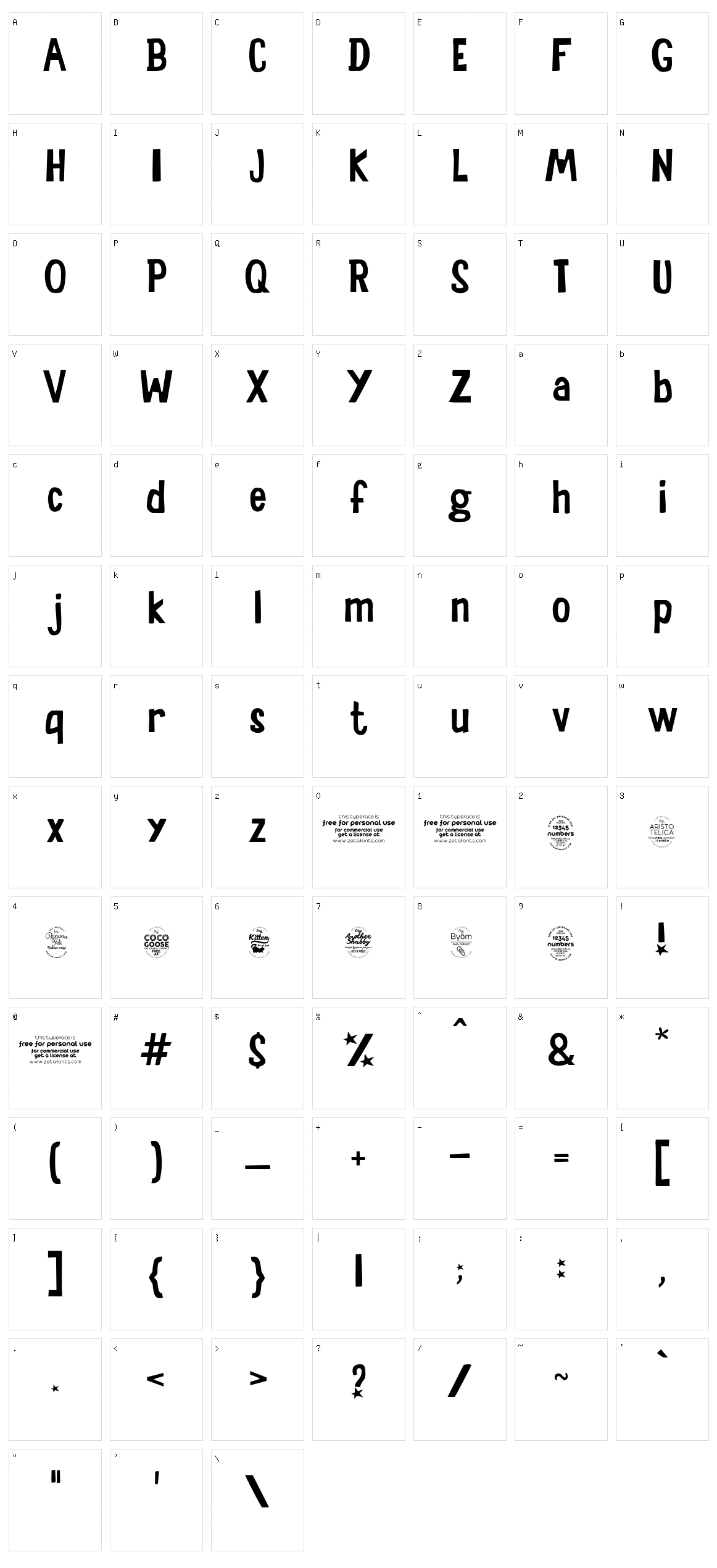
Sala de Fiestas is inspired by a handpainted sign for a ballroom in the island of Fuerteventura. The missing letters were drawn keeping the existing ones' idiosyncrasies (casual serifs, star-shaped dots).
Though hand-drawn the font manages unexpectedly to be very readable as body text, with the proportions of a condensed sans serif.